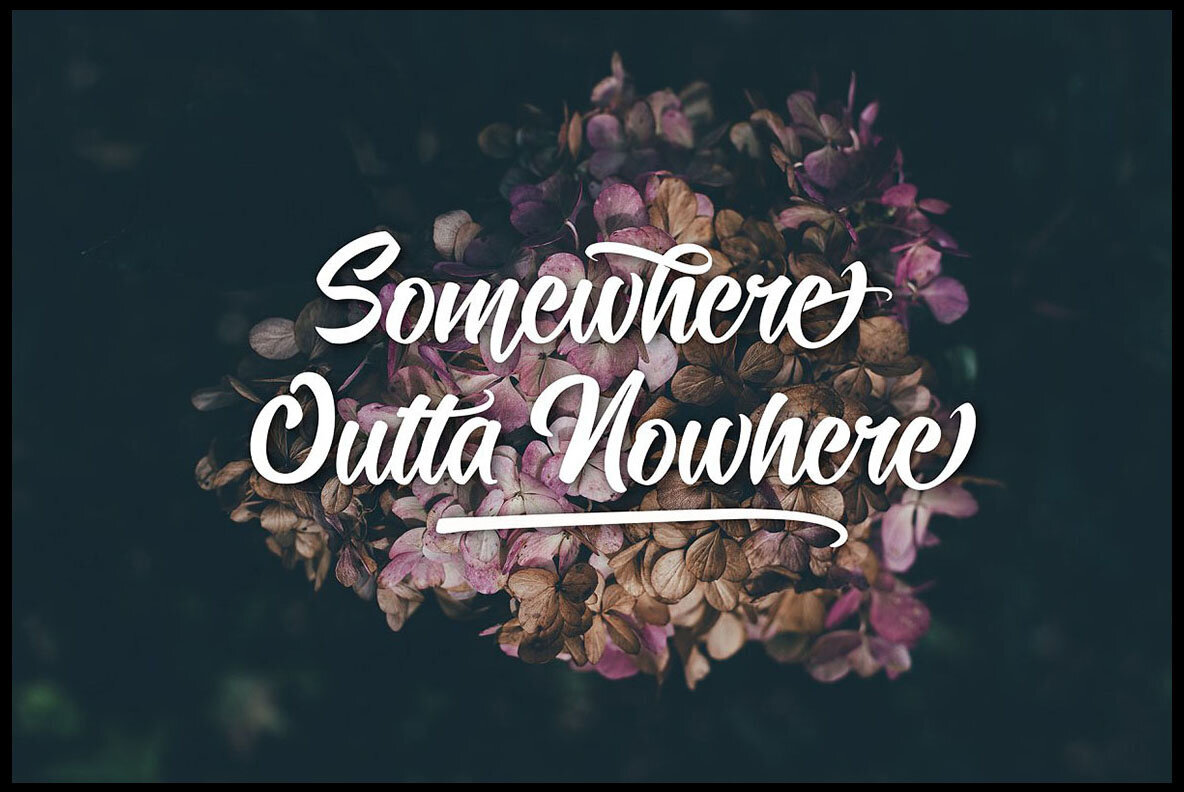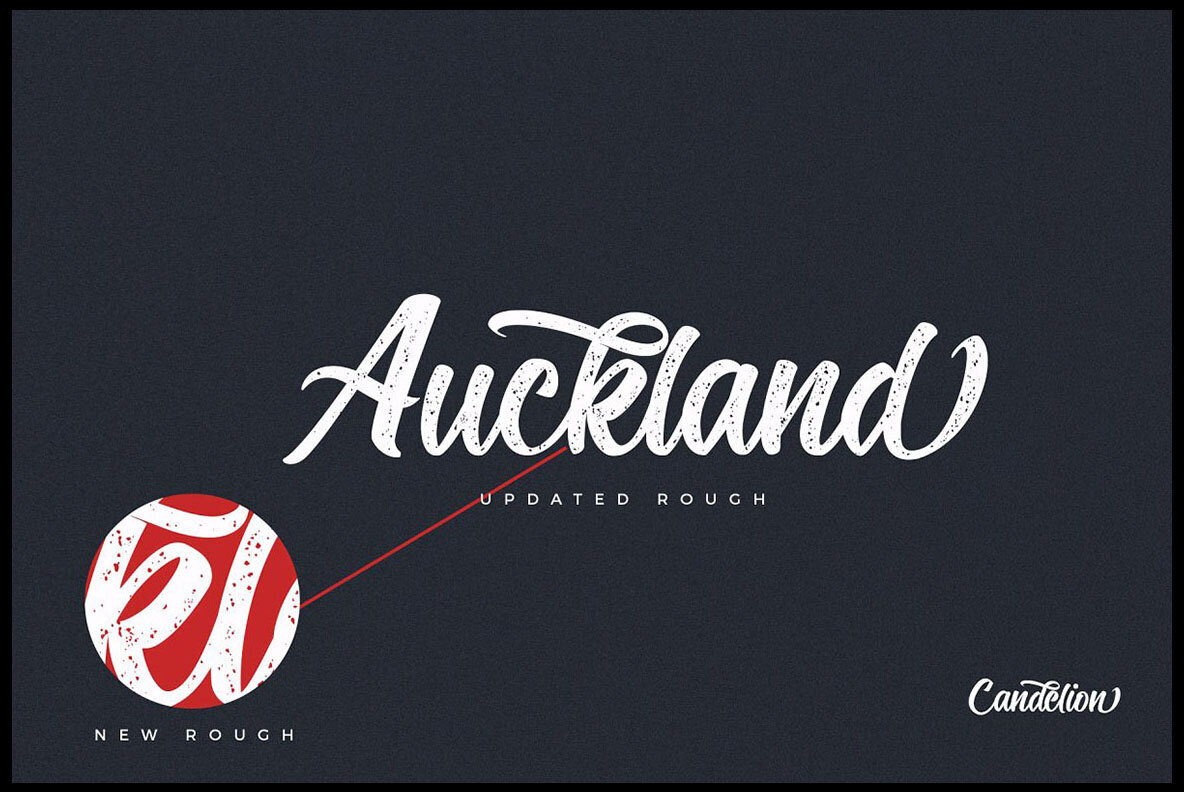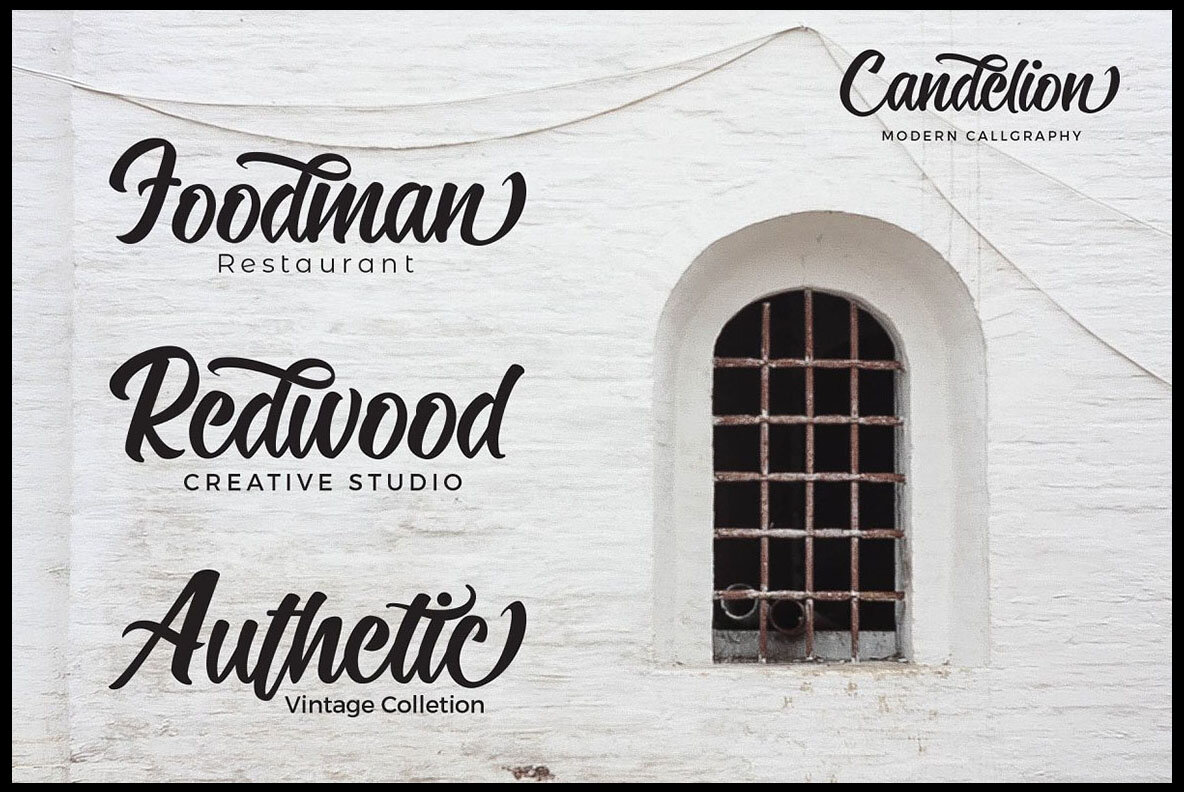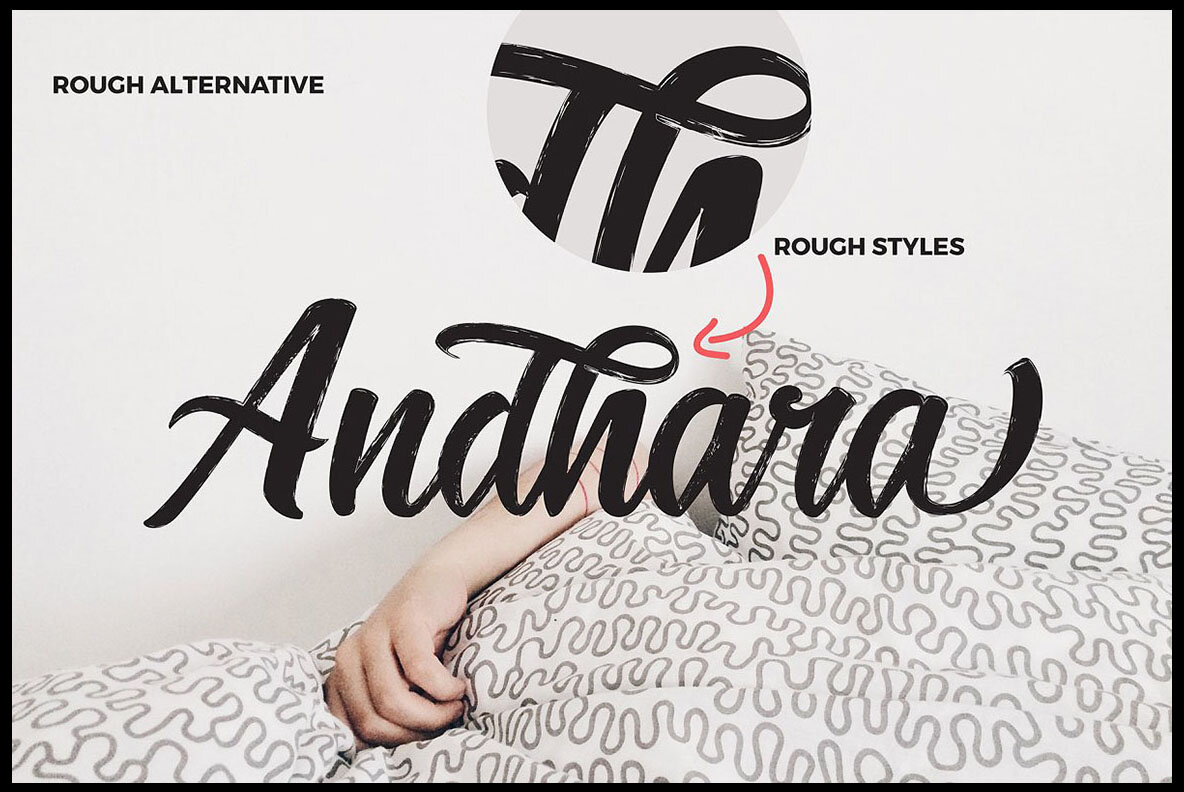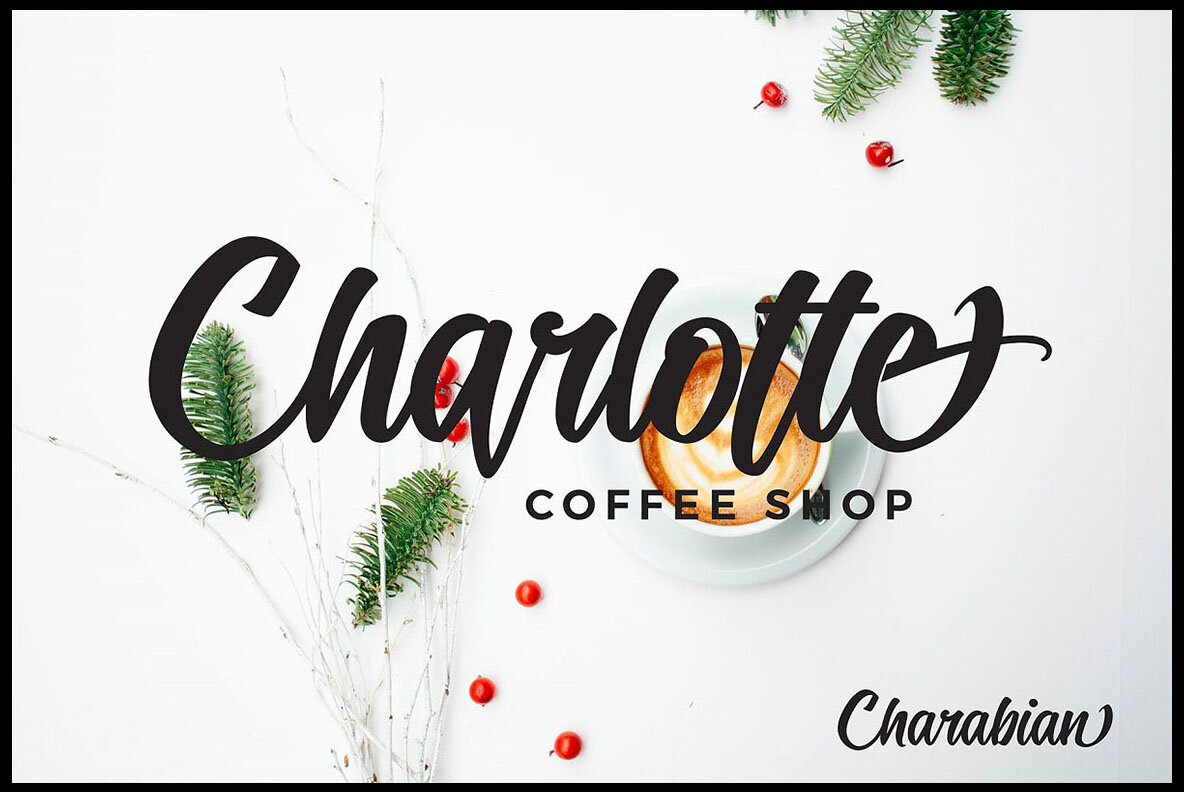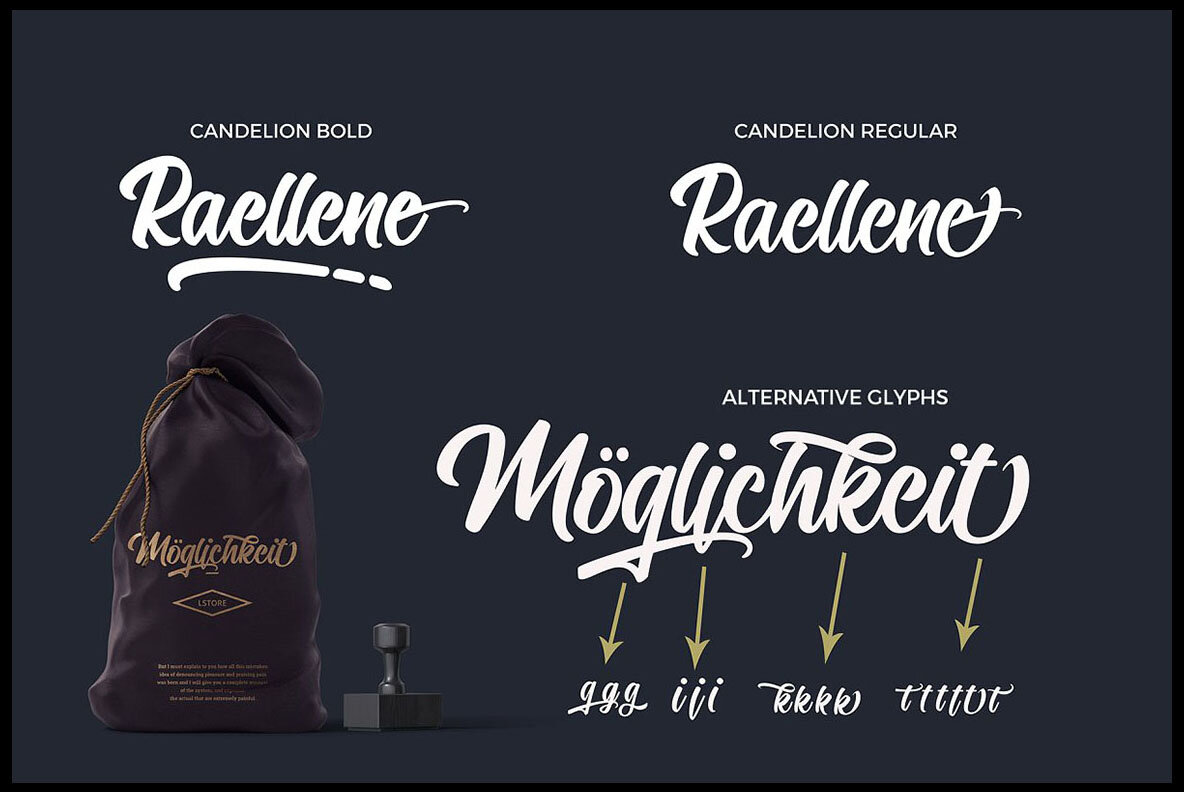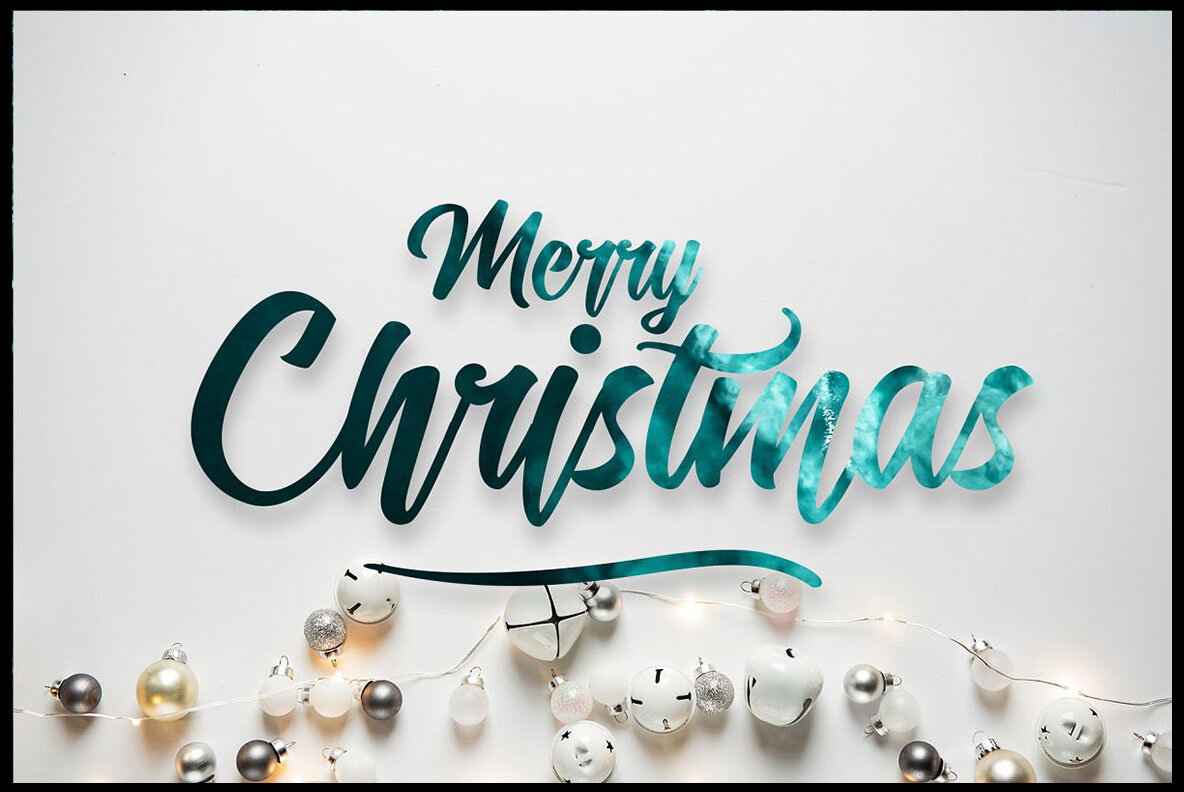
Candelion Font
Candelion, designed by Peter Olexa, draws inspiration from urban and freestyle artwork. This font's casual, marker style combined with numerous stylistic alternates allows for the creation of dynamic and realistic headers. It includes a swashes font that beautifully complements its core design, making it an ideal choice for branding, advertising, and creative headlines.Candelion: Urban-Inspired Freestyle Font